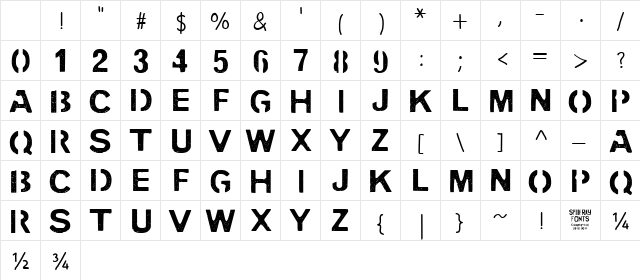
PENCIL STENCIL borrows the utilitarian aesthetic of stencil lettering, with its characteristic cutaways and no-frills construction lending an industrial edge.
Pro Tip: Use PENCIL STENCIL at large sizes on packaging, posters, or apparel where the stencil cutaways read clearly. Avoid small sizes where those gaps become visual noise.